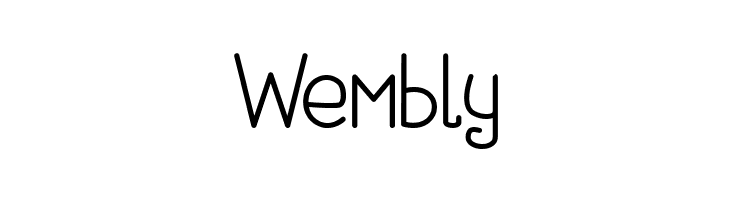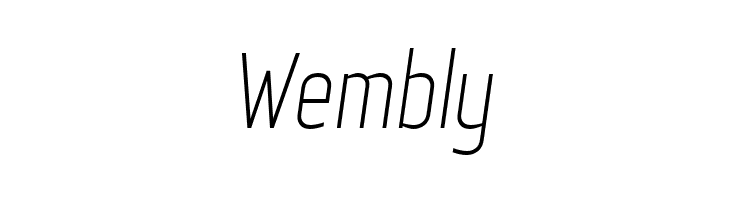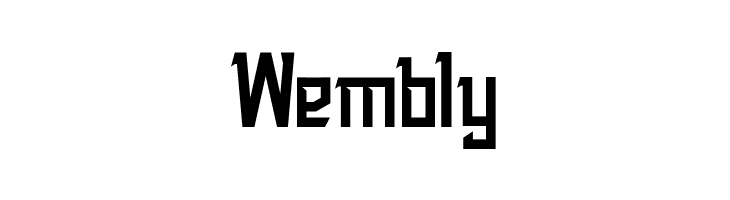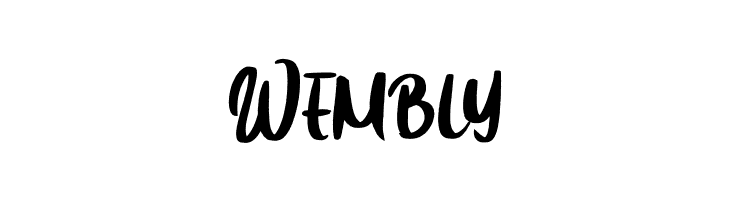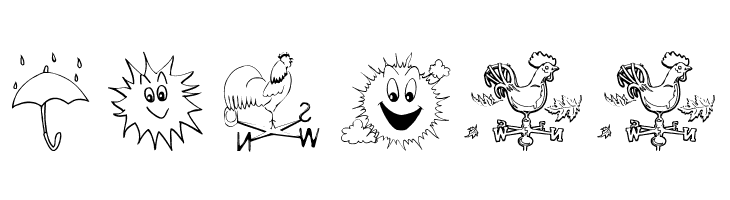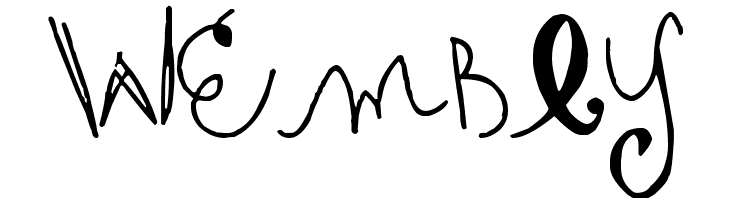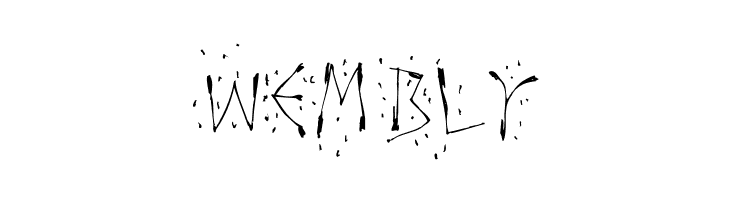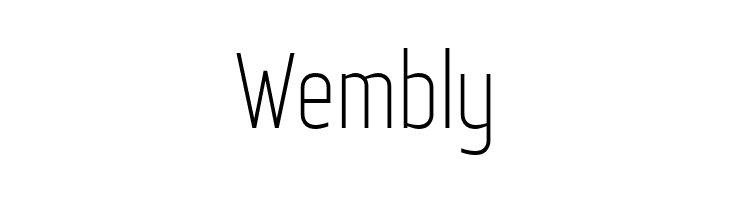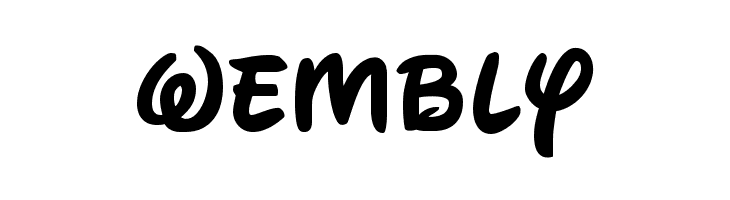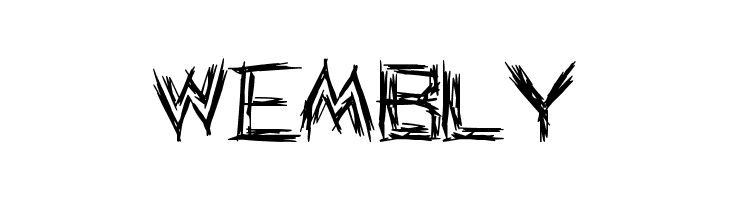
A playful, handwritten font with smooth curves and whimsical style.
A playful, bold, and rounded font with a hand-drawn, cartoon-like style.
A whimsical and playful font with curly, decorative letterforms.
A bold, geometric font with a modern and impactful design.
A bold, angular font with a geometric and modern design.
A rugged, distressed font with a hand-drawn, tribal aesthetic.
A bold, hand-drawn font with an artistic and dynamic style.
A bold, dynamic script font with flowing, cursive letterforms.
A bold, expressive script font with fluid, interconnected strokes.
A modern, sleek font with elegant curves and clear readability.
Functional, icon-based font for wash care and laundry symbols.
A modern, geometric sans-serif font with a clean and balanced appearance.
A bold, geometric font with a modern and clean appearance.
A bold, oblique font with a modern and dynamic style.
A bold, modern sans-serif font with geometric shapes and clean lines.
A bold, oblique font with a modern and dynamic style.
A modern, extended sans-serif font with a clean and professional appearance.
A bold, extended font with a modern, geometric style.
A bold, extended, and oblique typeface with a modern, dynamic style.
A bold, extended sans-serif font with a modern and clean design.
A modern, bold, and oblique font with extended width and high contrast.
A modern, oblique font with extended width and medium contrast, ideal for dynamic designs.
A sleek, modern oblique font with consistent stroke thickness and dynamic style.
A playful, modern font with rounded edges and a clean, minimalist aesthetic.
A rugged, distressed font with jagged edges and a chaotic, hand-drawn style.
Whimsical weather-themed dingbat illustrations.
Bold, geometric icon set for web and UI use.
Outlined icon set with uniform stroke and rounded shapes.
A playful, bold handwritten font with a casual and friendly style.
A bold, handwritten-style font with smooth curves and a playful aesthetic.